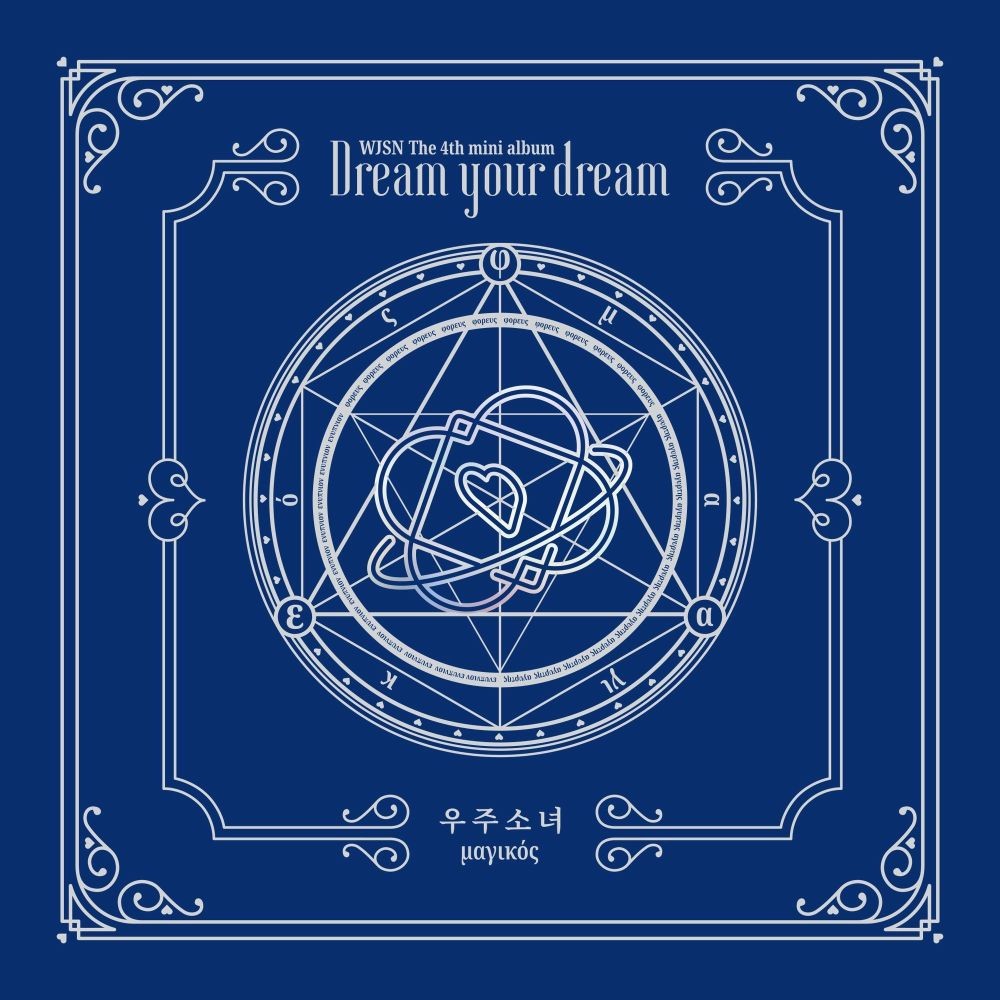
Dream Your Dream Font
Fonts in UseDream Your Dream is a six-track extended play by Cosmic Girls (also known as WJSN), a South Korean-Chinese girl group. It was released on February 27, 2018, and features a mix of pop, electronic, and orchestral elements with dreamy and whimsical themes.
The font utilized for the title of the EP, Dream Your Dream, is called Ayres. It's a condensed display serif that was designed by MAGOfonts and is available for free download from the Fonts Used Section.